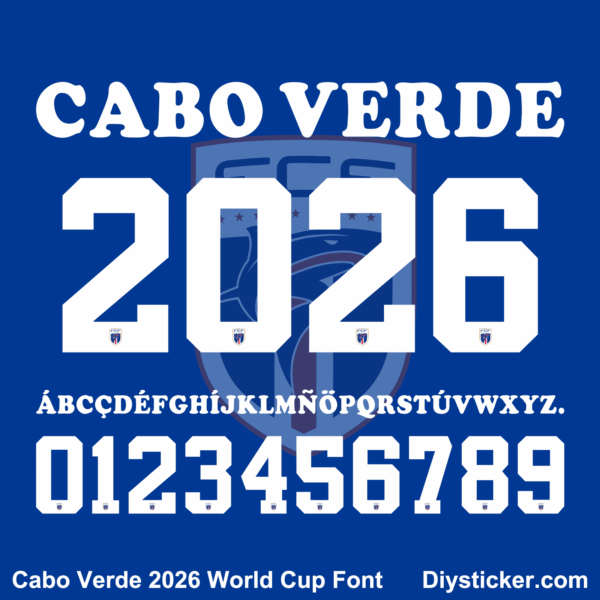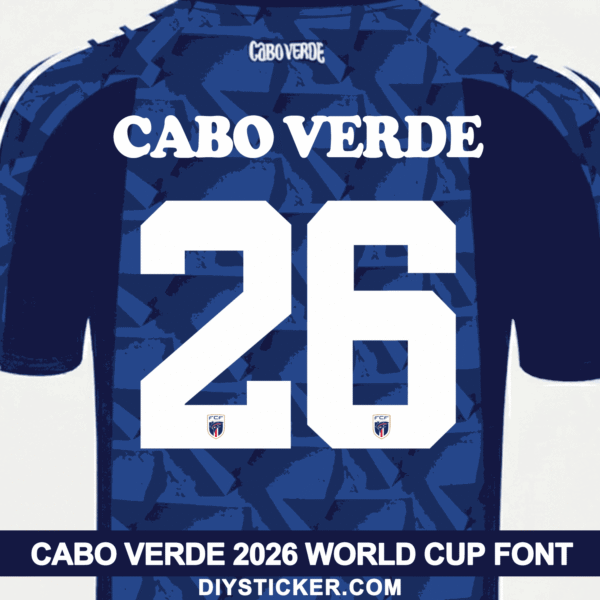
Cabo Verde 2026 World Cup Font & Numbers Vector Kit: Premium CAF Tournament Customization
Upgrade your custom print production with the high-performance Cabo Verde 2026 World Cup font and complete numbers set. Designed to perfectly replicate the striking national team look worn during international qualifiers and world championship stages, this digital toolkit offers unrivaled geometric precision. Whether you are creating a custom name-set for a passionate fan or compiling massive promotional sports signage, our vector files ensure factory-fresh alignment. Discover more iconic international tournament designs by exploring our curated World Cup Font 2026 repository.
Aesthetic Design Breakdown & Typography Engineering
The Cabo Verde 2026 World Cup font showcases a brilliant stylistic contrast between its alphabetical characters and numeric glyphs, offering a highly unique sports aesthetic:
Classic Heavy Serif Typography: The alphabet features a heavy, high-impact block serif structure. Thick stems, classic rounded counters, and prominent bracketed serifs give player names an undeniable commanding presence across the shoulders.
Chiseled Octagonal Number Geometry: Breaking away from the curves of the alphabet, the numbers utilize a sharp, modern octagonal structure with cleanly chiseled 45-degree corners. This blocky, geometric approach ensures maximum legibility from any distance on the pitch.
Integrated Miniature Association Branding: Nestled precisely near the bottom baseline of every single digit is a miniature, high-fidelity Federação Caboverdiana de Futebol (FCF) national crest watermark, providing ultimate replica authenticity for high-end customization.
Brilliant Crisp White Profile: Engineered to pop with maximum visual impact when rendered in solid white against the team’s vibrant ocean-blue and textured home kits.